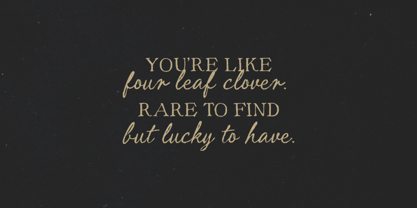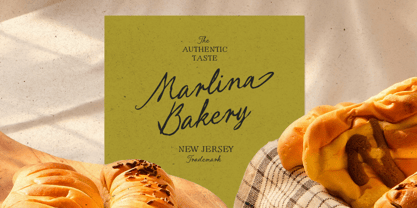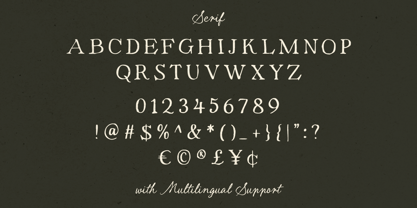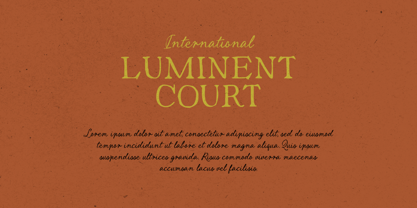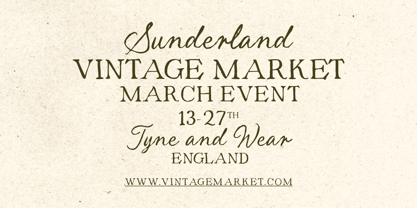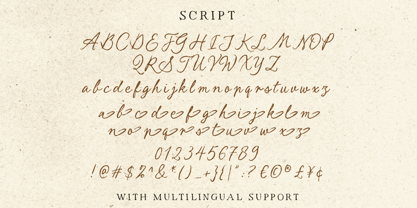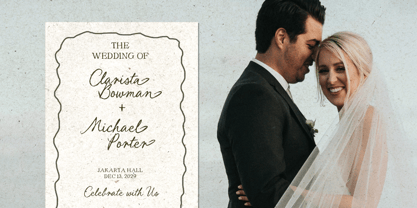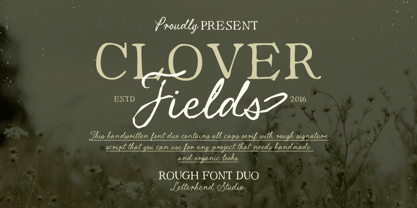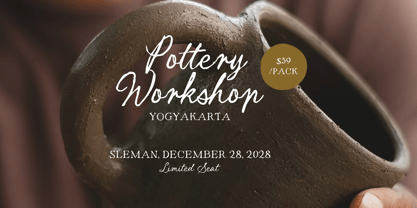
Clover Fields
La famille de polices Clover Fields a été conçue par Hendry Juanda et publiée par Letterhend. Clover Fields contient 2 styles et options de package familial. En savoir plus sur cette famille
Clover Fields blends an organic serif with a rough handwritten script, creating a soft rustic look that feels calm, natural, and beautifully imperfect. The textured strokes and organic details give this font duo a warm handmade charm, like notes written in an old countryside journal.
• Uppercase & lowercase
• Numbers and punctuation
• Alternates & Ligatures
• Multilingual Support